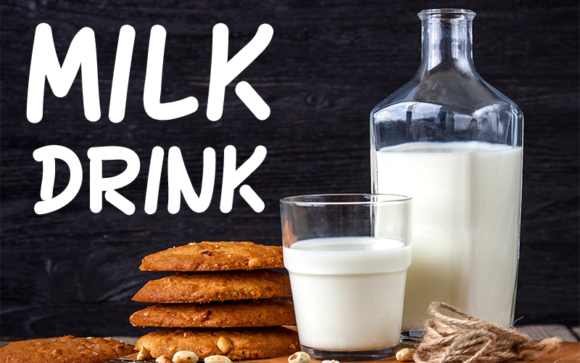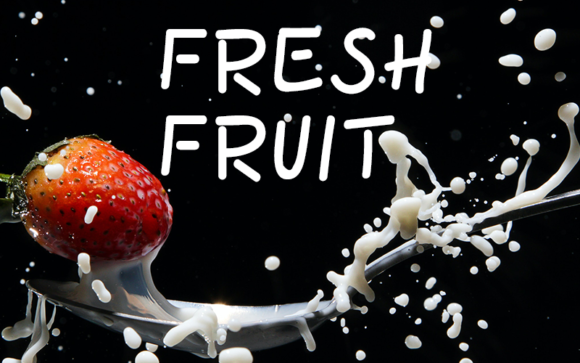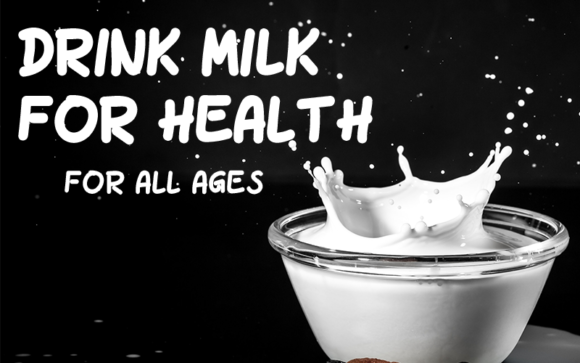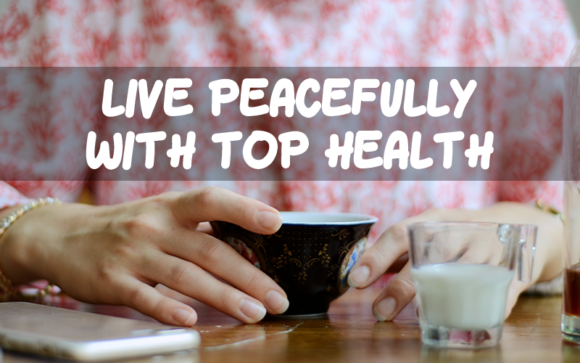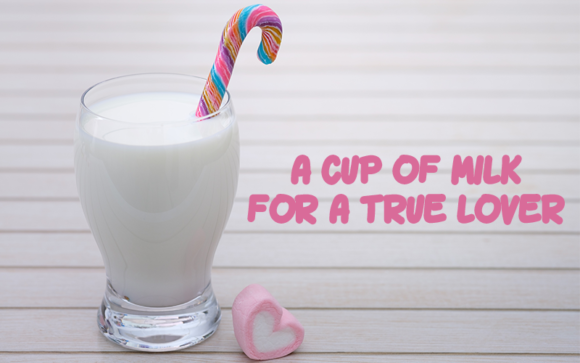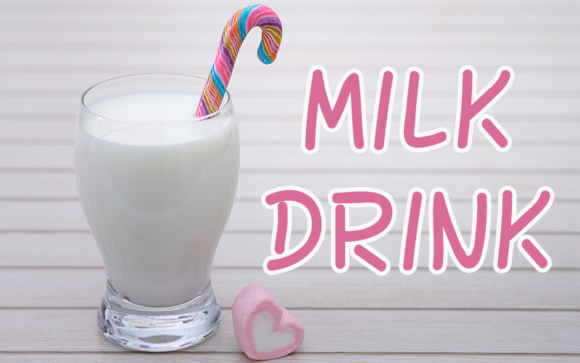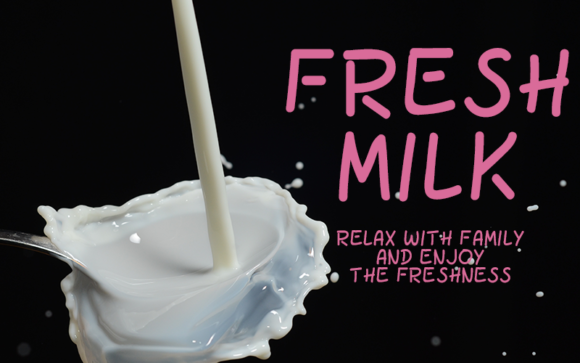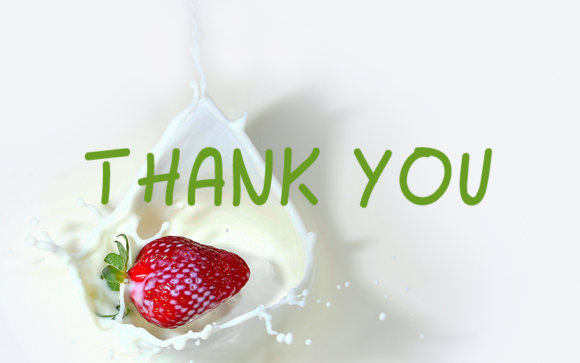
Milk Drink Font
About Milk Drink Font
Milk Drink feels equally charming and elegant. Whether you’re looking for fonts for Instagram or calligraphy scripts for DIY projects, this font will turn any creative idea into a true piece of art!